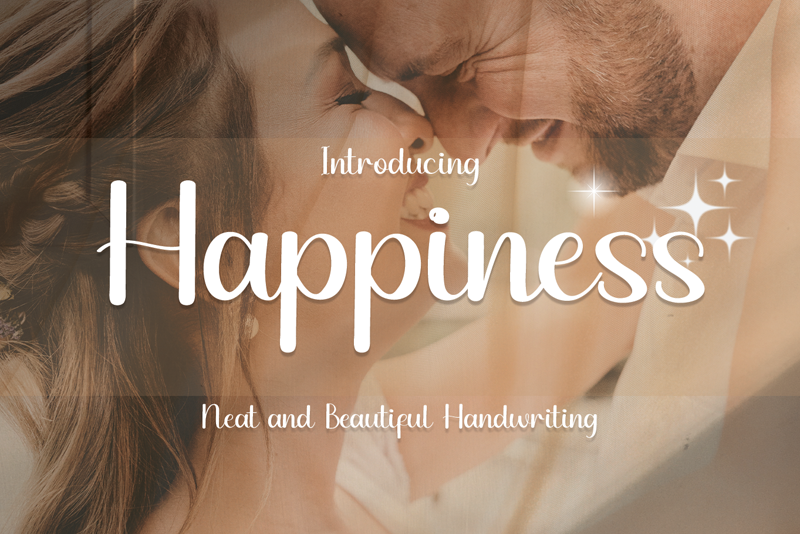
Preview and download Happiness Font. Created by Erik Luluk in Script Various styles with Free for personal use license.
Font name: | Happiness |
Happiness is a beautiful and refined script font. It has a classy, elegant, and modern look that can be used for logos, branding, invitations, stationery, wedding designs, social media posts, and much more! Attention : Happiness handwriting Font is prohibited to use this font for commercial purposes or for profit without the permission of the author/admin, without being known to use this font without permission, will be subject to sanctions 5x the specified price. This font is used only for demos (Demo license) If you want to use this font for commercial use please contact email: erikluluk0@gmail.com or click the link below: https://www.creativefabrica.com/product/happiness-14/ref/745146/ If you want to see more other fonts, please click:https://www.creativefabrica.com/designer/erik-studio/ref/745146/ Any donations are very appreciated. Paypal account for donation: https://paypal.me/eriksupriyant thanks. |